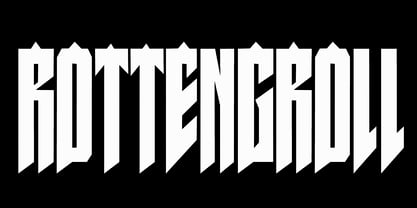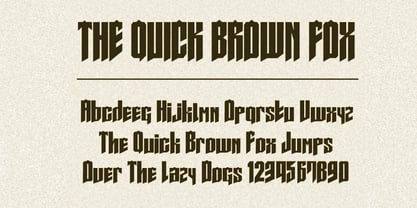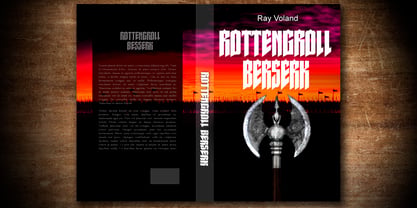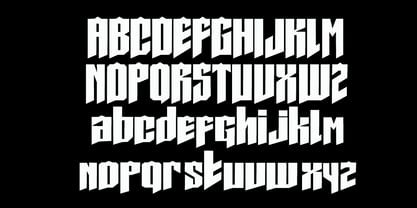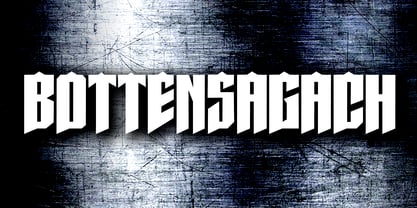
Bottensagach
by Beewest Studio
The Bottensagach Font Family was designed by bsmbang wisudyantoro and published by Beewest Studio. Bottensagach contains 1 styles. More about this family
Bottensagach is an incredibly thick-lettered and bold
display font inspired by the powerful aesthetics of Nordic,
Celtic, and Gothic design traditions. Its strong character
shapes, dramatic presence, and striking details make it an
excellent choice for projects that demand a commanding
visual impact. Whether you're creating logos, posters,
book covers, game titles, branding materials, or
merchandise designs, Bottensagach delivers a distinctive
look that instantly captures attention and leaves a lasting
impression. Designed to blend ancient Northern
influences with modern display typography, Bottensagach
offers both versatility and personality. This font works
beautifully for fantasy-themed artwork, Viking-inspired
designs, medieval projects, music branding, and any
creative work that benefits from a bold and legendary
atmosphere. Whatever the topic, Bottensagach will be a
valuable addition to your font collection, providing the
strength, uniqueness, and visual appeal needed to elevate
your creations and make them stand out from the crowd.
Designers: bsmbang wisudyantoro
Foundry: Beewest Studio